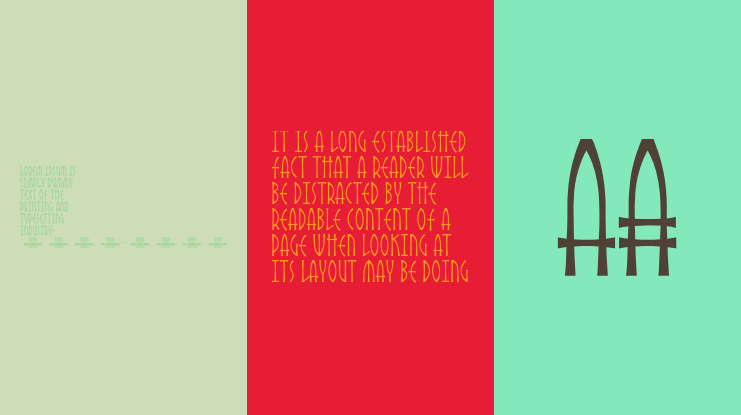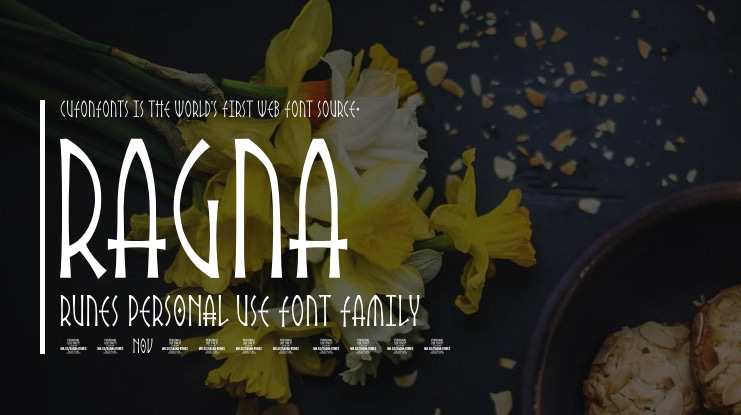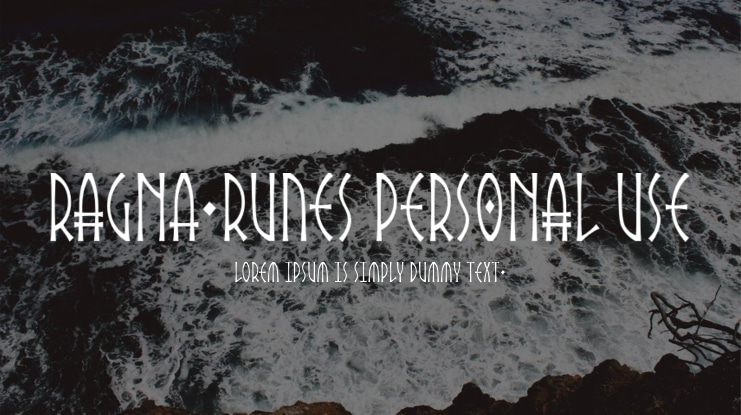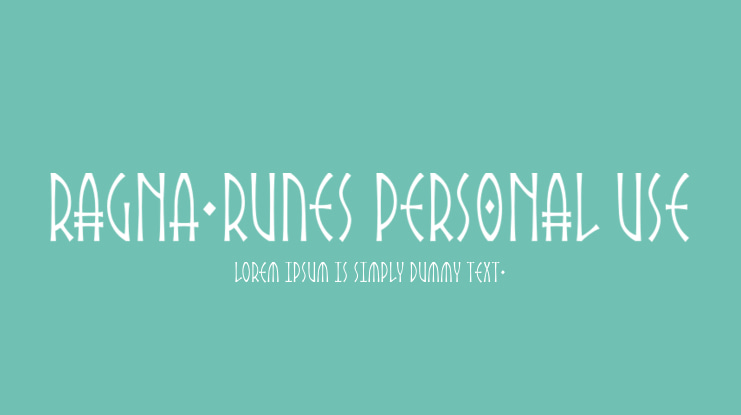
Ragna Runes PERSONAL USE Font
Ragna Runes takes you on a journey back to ancient times, to a world of myths and legends. Using this font is like uncovering a forgotten civilization, where each rune is more than just a letter; it's a relic from a distant past.